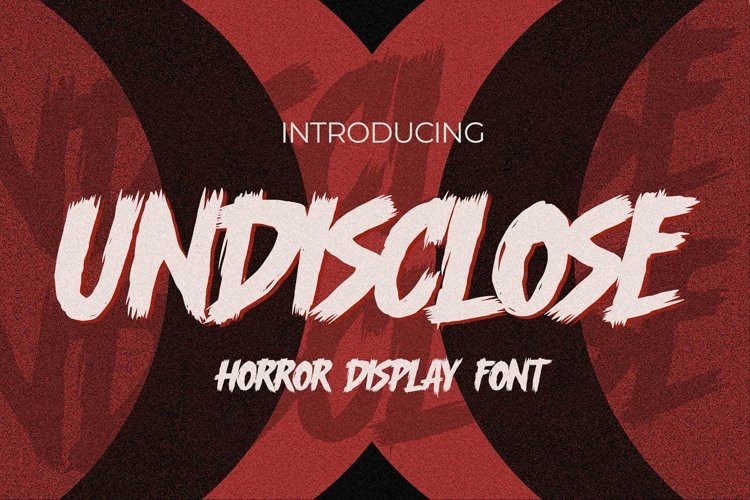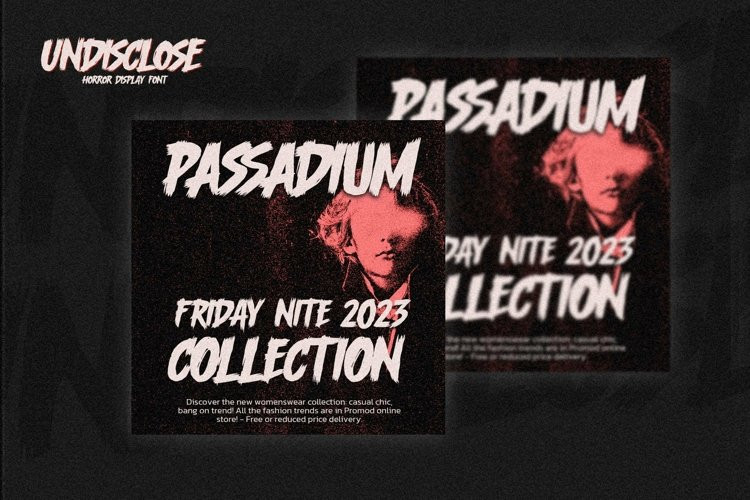
Undisclose Font
Undisclose FontHello Everyone, introduce our new product Font UNDISCLOSE it is Horror Display Font.This is a Textured Natural Style and Strong style with a Cool style and dramatic movement.
This font UNDISCLOSE is great for your next creative project such as logos, printed quotes, invitations, cards, product packaging, headers, Logotype, Letterhead, Poster, Design this font is great for your creative projects such as watermark on photography, and perfect for logos & branding, invitation,advertisements,product designs, stationery, wedding designs,label ,product packaging, special events or anything that need handwritting taste.
That is has charming, authentic and relaxed characteristic more natural look to your text.